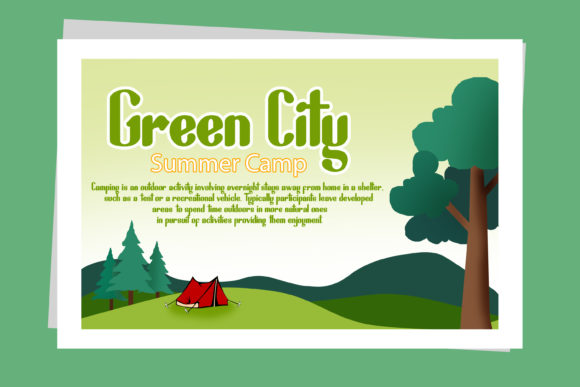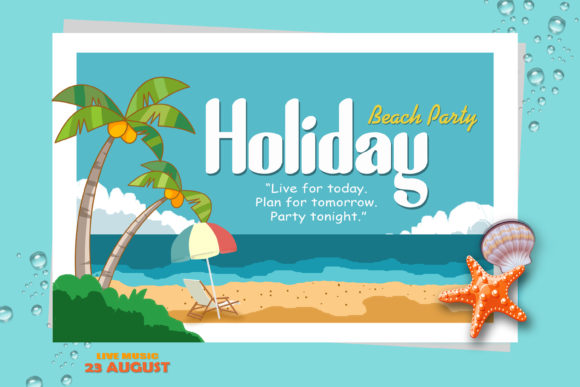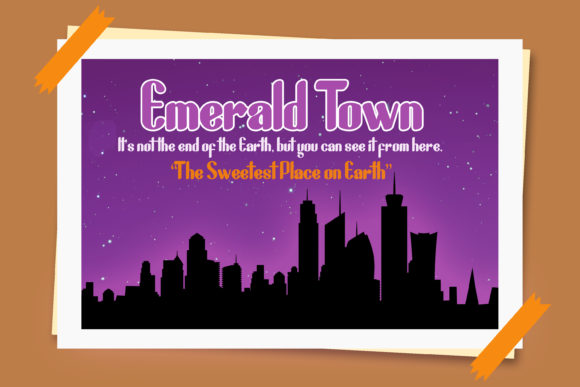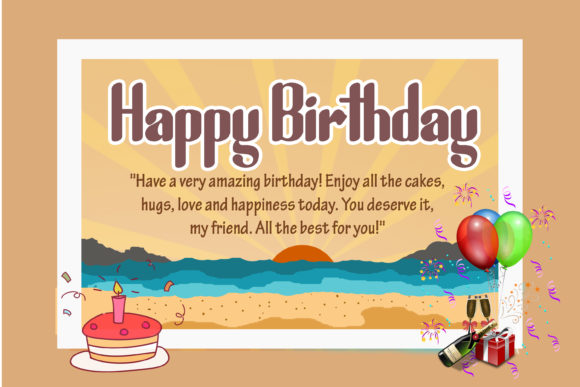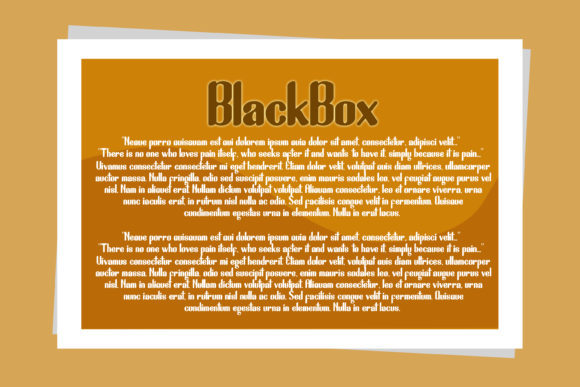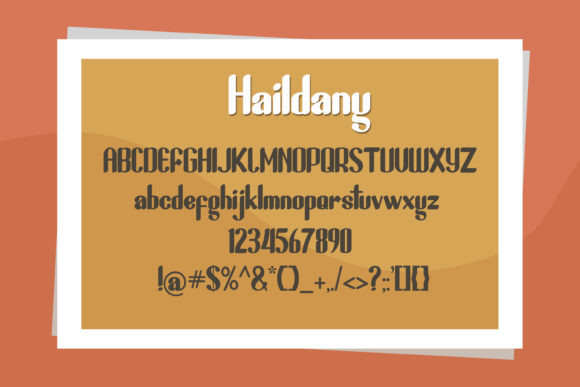
Introduction to Haildany Font
Have you ever stared at a blank canvas, feeling the creative juices coursing through your veins, yet struggling to find the perfect font to bring your vision to life? That’s exactly where I was when I stumbled upon the enchanting Haildany Font. Its clean and quirky design immediately caught my attention, and I couldn’t wait to dive in and explore its endless possibilities.
As a designer, I know how valuable a high-quality design resource can be. And let me tell you, Haildany Font is a game-changer. With its transparent background and crisp lines, it’s perfect for logos, branding, social media, and crafty DIY projects. Plus, it’s available for a free download, making it an absolute steal for any creative project.
Key Features of Haildany Font
- High-quality design resource ideal for creative projects, including logos, graphics, and digital art.
- Comes in a transparent background format, allowing for easy customization and integration with various design elements.
- Features a high-resolution design, suitable for use in print and digital media at resolutions up to 300 DPI.
- Unique, handcrafted design elements that can add a touch of personality to any creative project.
Honest Review: Haildany Font
I recently came across the Haildany Font and was excited to give it a try. As a designer, I’m always on the lookout for high-quality design resources that can elevate my creative projects. And I’m happy to report that Haildany Font does not disappoint!
- High-quality typography that’s perfect for titles and headings
- Transparent background, allowing for seamless integration into various design backgrounds
- Only a limited number of font styles are available for download, which may not be ideal for designers who require more options
- The font can appear somewhat generic, lacking a unique character that sets it apart from other fonts in its category
- No customization options are available for the font, which may limit its use in more complex design projects
Overall, I’d say the Haildany Font is a solid choice for designers who need a high-quality font for their creative projects. While it may have some limitations, its transparent background and free download option make it a valuable resource for designers of all levels.
Tips for Getting the Most Out of Haildany Font
Use the Haildany Font for creative projects that require a unique and high-quality design element. Experiment with different font sizes, colors, and styles to achieve the desired effect. Consider using the font with a transparent background to add depth and visual interest to your design.
The Haildany Font is suitable for various design projects, including brochures, flyers, business cards, and presentations. It’s also a great resource for designers who want to add a touch of elegance and sophistication to their designs.